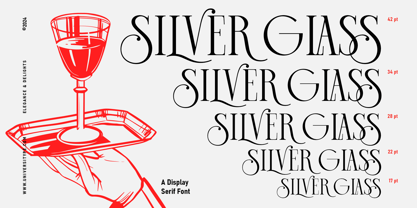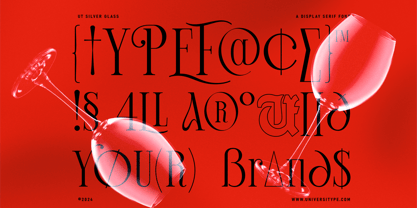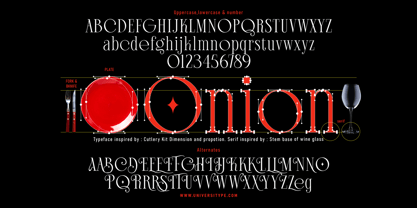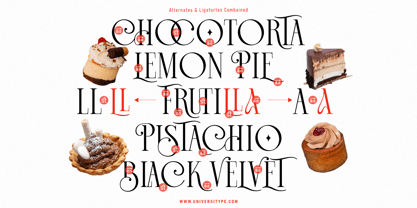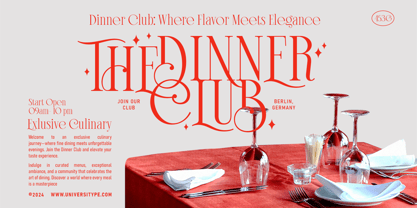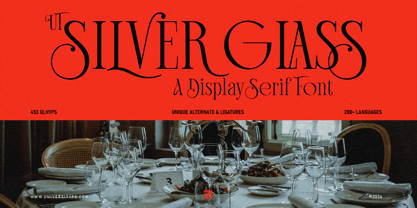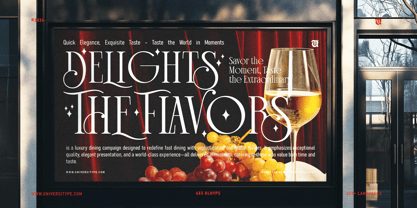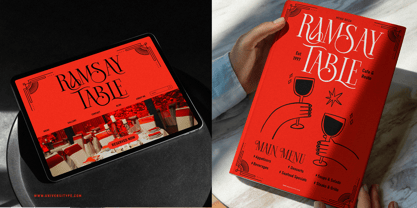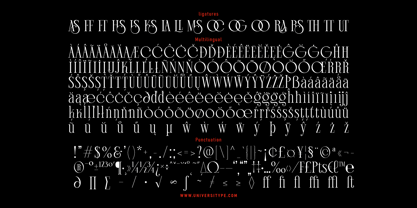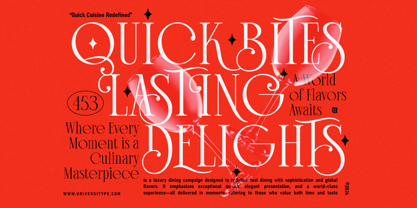
UT Silver Glass
by Universitype
The UT Silver Glass Font Family was designed by Muh. Aswar, Novan Arisandi and published by Universitype. UT Silver Glass contains 1 styles. More about this family
Introducing UT Silver Glass: A Modern Serif Masterpiece
UT Silver Glass seamlessly marries timeless elegance with contemporary flair, redefining the essence of sophisticated serif fonts. This finely crafted typeface balances luxurious traditional lines with a modern edge, offering a captivating interplay of flowing curves and intricate strokes. Enhanced by thoughtfully designed alternates and ligatures, it unlocks endless creative possibilities. Ideal for luxury branding, editorial layouts, and event stationery, UT Silver Glass exudes an unparalleled charisma—radiating both polished refinement and bold confidence.
Aesthetic Inspiration Rooted in Fine Dining
Every letter in UT Silver Glass reflects meticulous artistry, inspired by the graceful forms of fine dining ware. Picture the elongated stems of wine glasses, the gentle curves of silver utensils, and the fluid lines of glazed porcelain—these understated elements are the muse behind this sophisticated typeface. UT Silver Glass captures their elegance and translates it into a design that balances tradition with innovation, making it a perpetually stylish choice for any project.
A Versatile Typeface for Sophisticated Design
From its striking serifs and balanced symmetry to its extensive linguistic support, UT Silver Glass is more than a typeface—it’s a design essential. With a rich array of ligatures, alternates, and stylistic versatility, it adapts seamlessly to diverse creative applications. Whether crafting luxury branding, designing editorial layouts, or curating event stationery, UT Silver Glass infuses each project with unmatched sophistication. Its ability to resonate across over 200 languages ensures its place as a universal symbol of refined design.
Designers: Muh. Aswar, Novan Arisandi
Current Foundry: Universitype